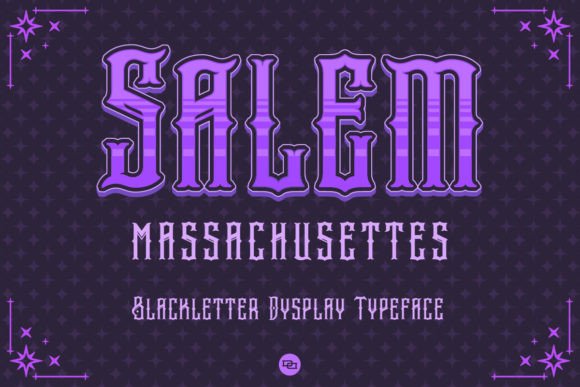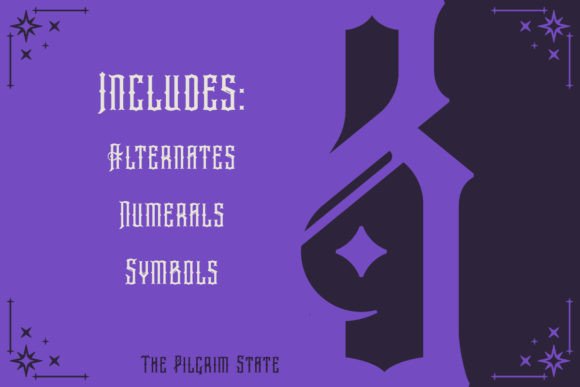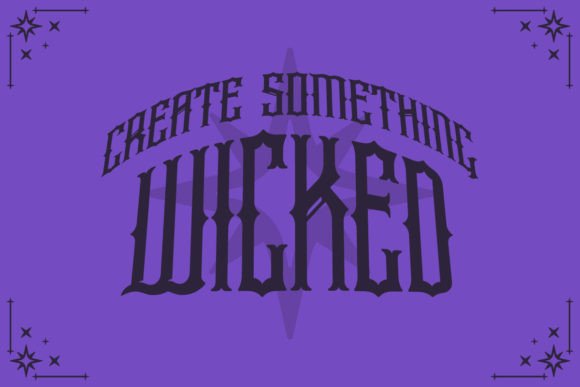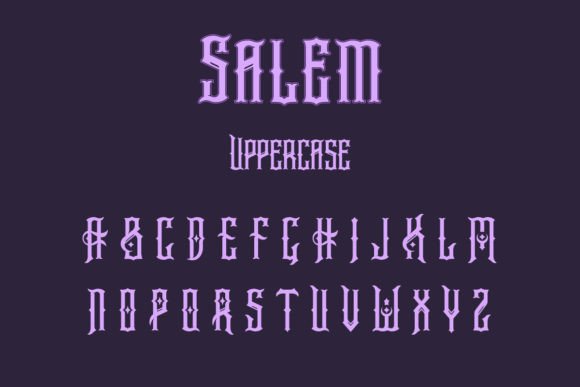
Salem Font: A Mystical Blackletter for Spooky Designs & Halloween
About the Salem Font
Presenting Salem Font, a unique and stylish typeface that will make your work stand out. Salem is a vintage blackletter display typeface that conjures the mystique and allure of Halloween. With its intricate design, each character exudes an enchanting, witchy charm. Stars are thoughtfully integrated into select letters, adding a touch of magical sparkle. Ideal for spooky seasonal designs, Salem evokes the eerie elegance of haunted tales and ancient incantations, making it perfect for posters, invitations, and themed branding. This typeface captures the essence of vintage gothic allure while infusing a whimsical, supernatural flair.
Salem Font Usage Examples
Salem Font Example